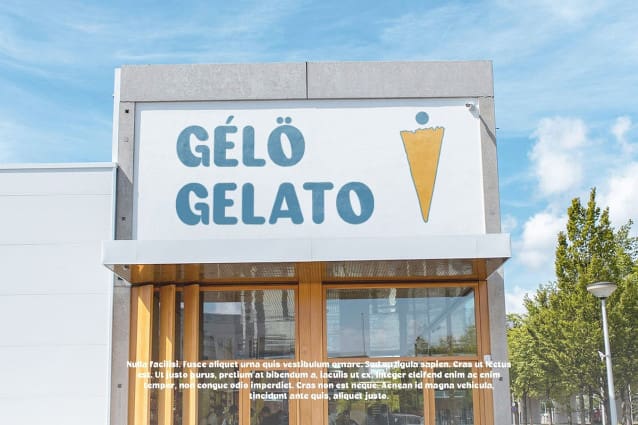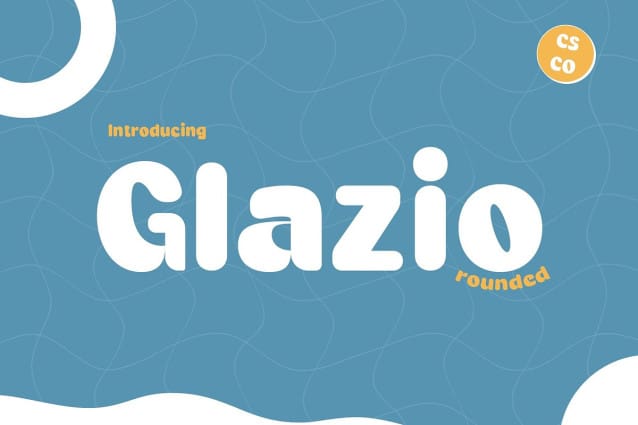
Glazio Rounded Font
Glazio Rounded Font is a bold sans-serif font characterized by its thick, smooth edges that create a delightful, playful appearance. The rounded letterforms give the font a soft, approachable feel, making it ideal for designs that seek to convey a sense of fun and friendliness.
Funky and Vibrant Vibe This font exudes a funky, vibrant vibe, perfect for projects that need a cheerful and lively touch. Whether you’re working on playful branding, children’s materials, or creative invitations, Glazio Rounded brings a burst of energy and joy to your designs. Its boldness ensures it stands out, while the rounded shapes maintain a sense of warmth and approachability.
Ideal for Cheerful Projects Glazio Rounded’s combination of boldness and cuteness makes it a versatile choice for a variety of applications. It’s perfect for any project that aims to be engaging, energetic, and full of life, from playful logos to colorful posters and beyond.